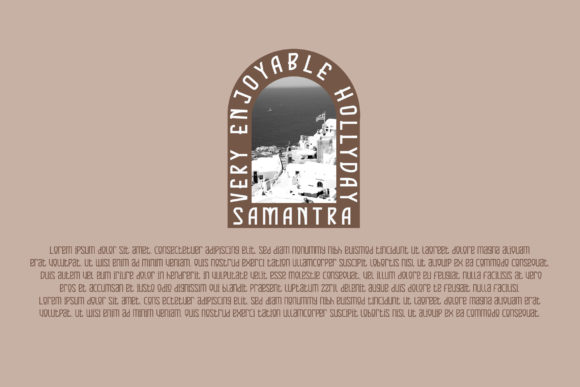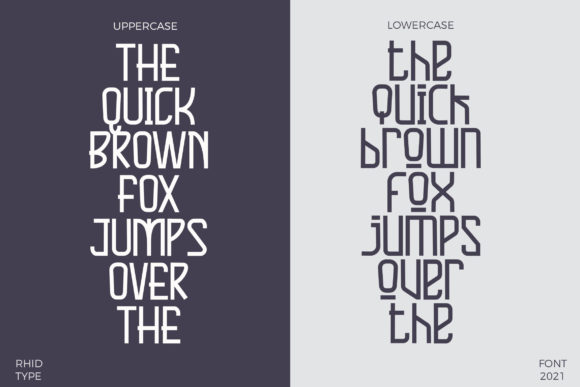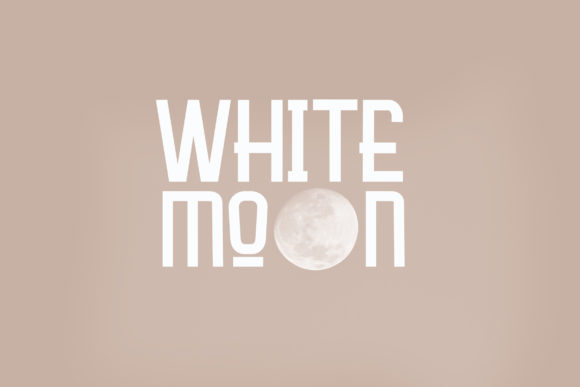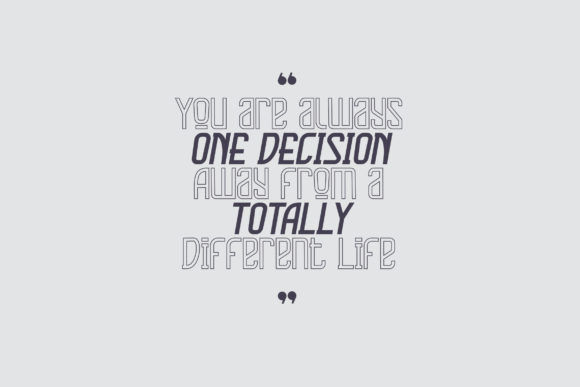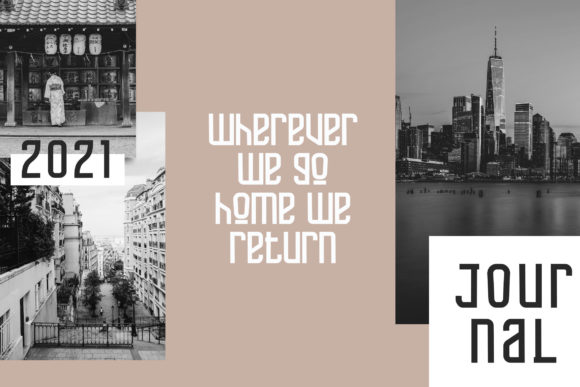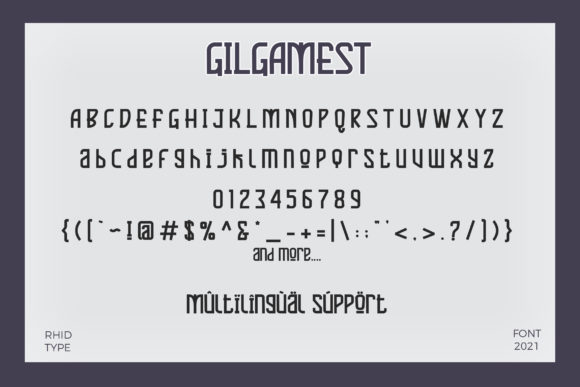
Introduction to Gilgamest Font
Gilgamest is a cool and organic display font.
It will look stunning on any poster flyer or print Use this font for your designs and explore its endless possibilities.
Key Features of Gilgamest Font
Why Choose Gilgamest Font?
Gilgamest Font offers exceptional quality and versatility, making it a valuable addition to your design toolkit. Whether you’re creating for personal projects or commercial use, Gilgamest Font delivers professional results.